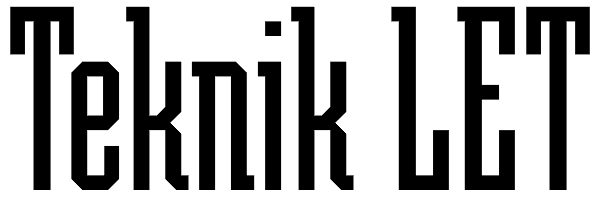
Teknik
Inspired by the powerful-looking geometric styles of the 1920's Soviet constructivist movement, this strong, precise typeface is suitable for a wide variety of headline applications. Teknik is typographically categorized as an Egyptian style due to...